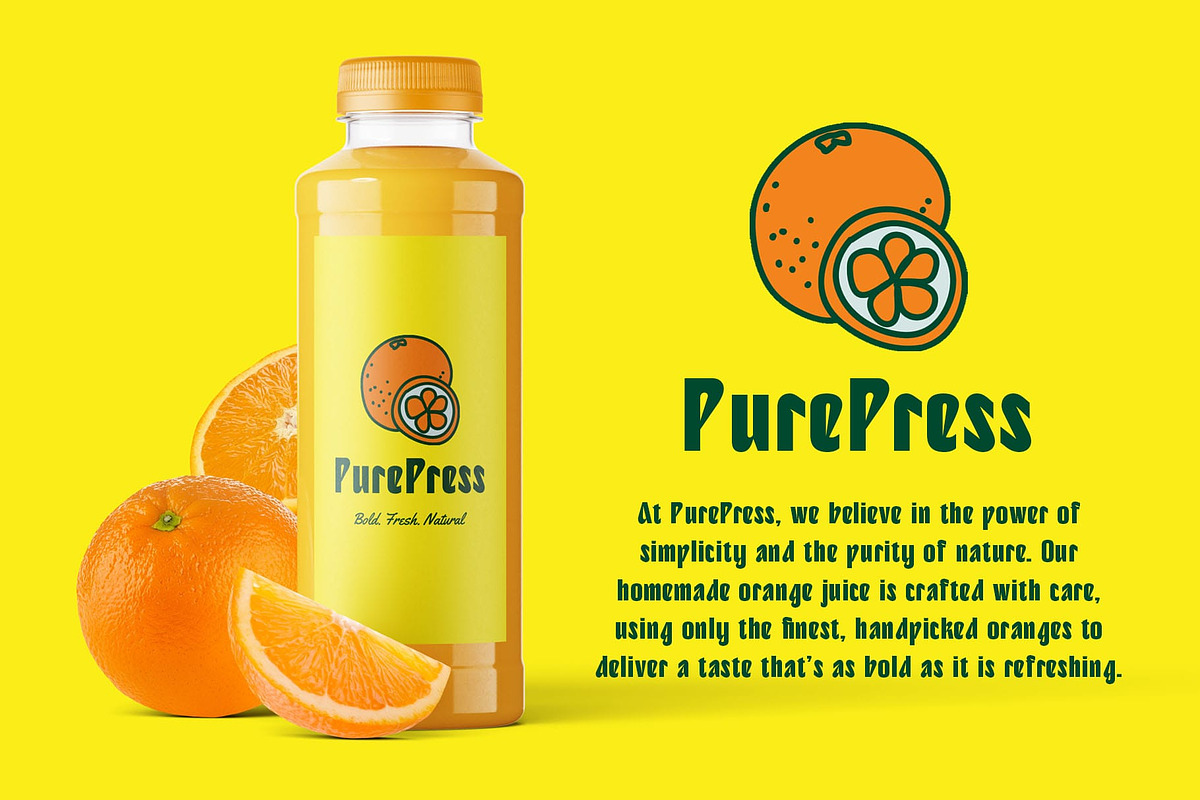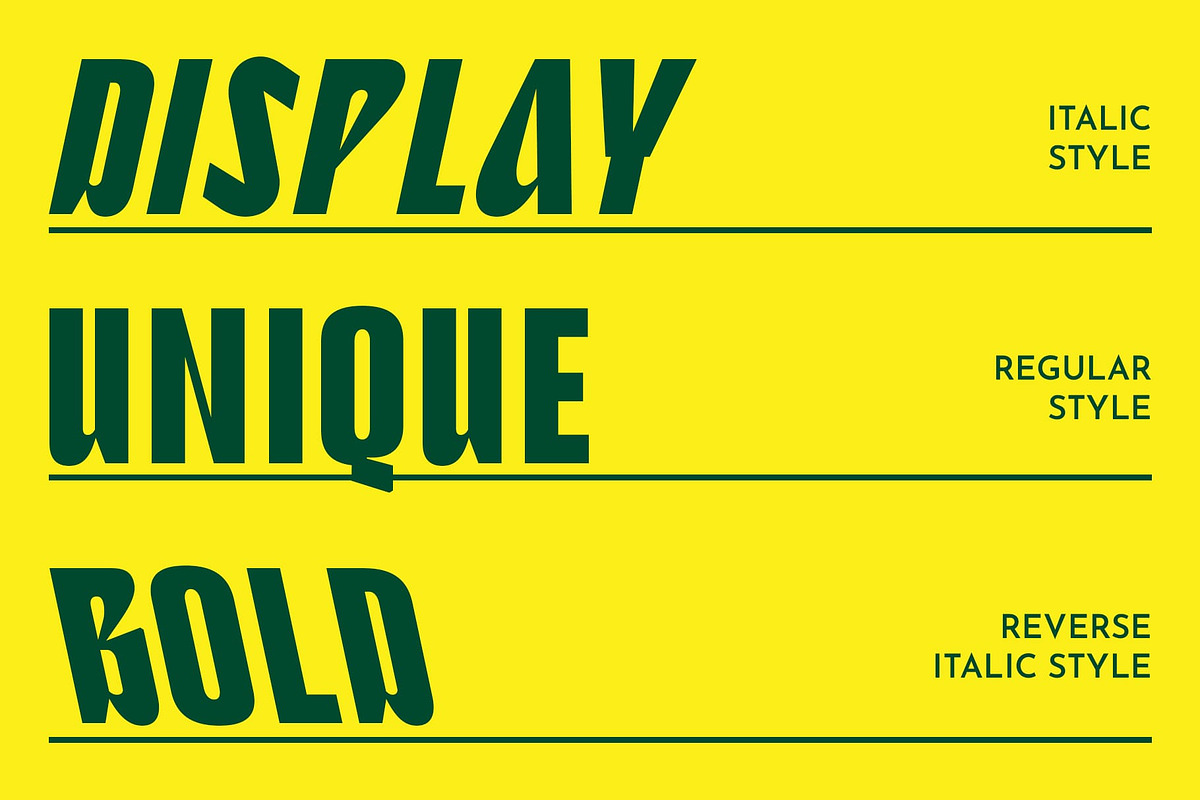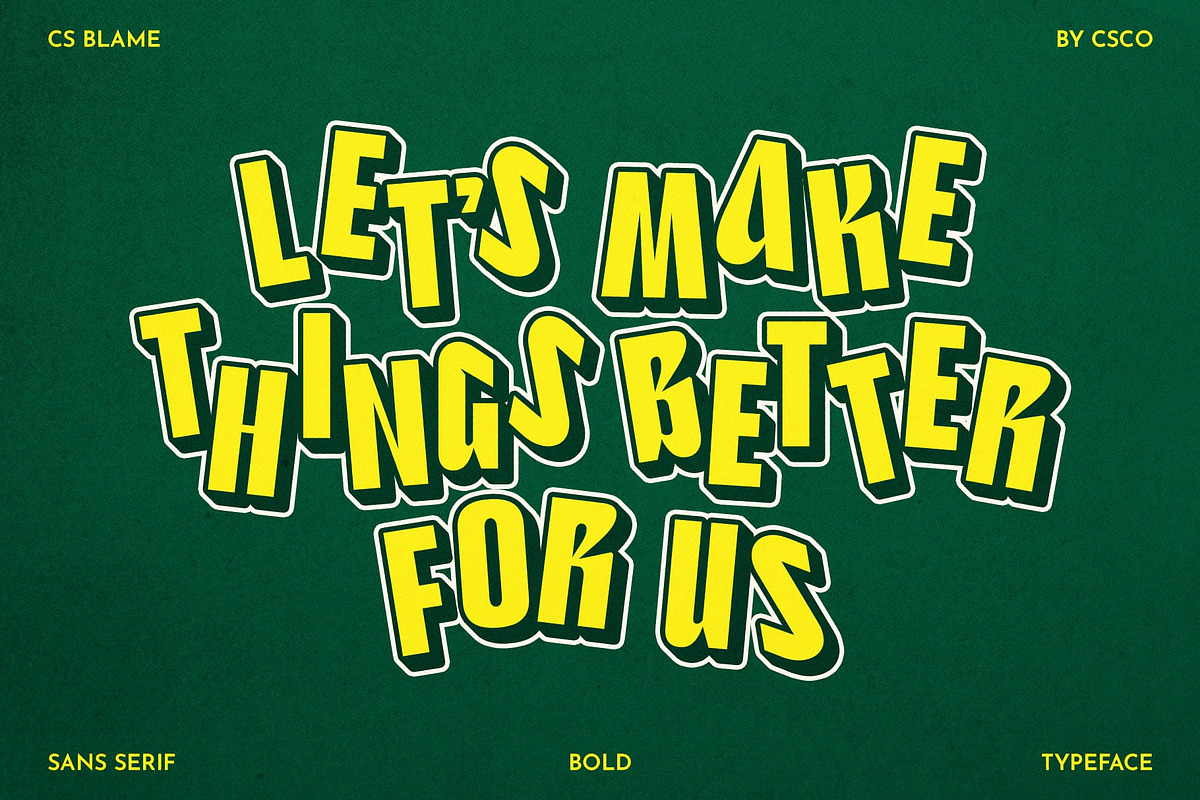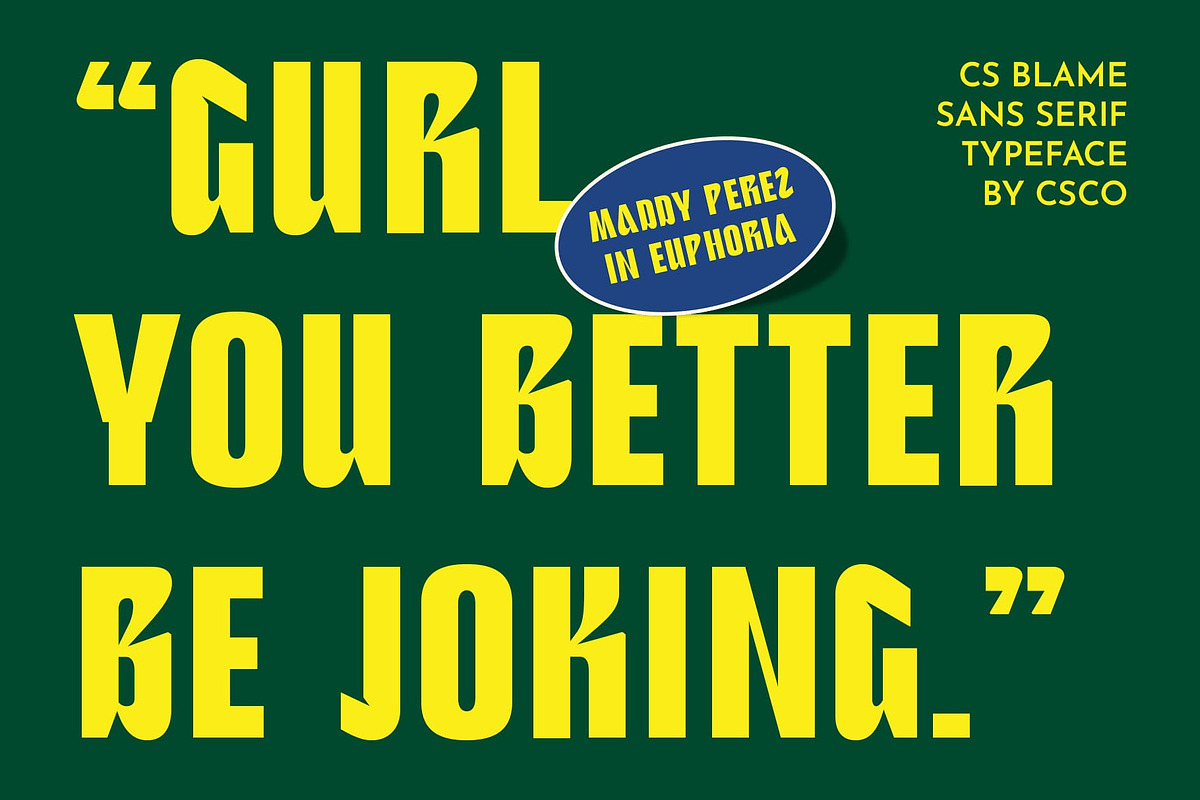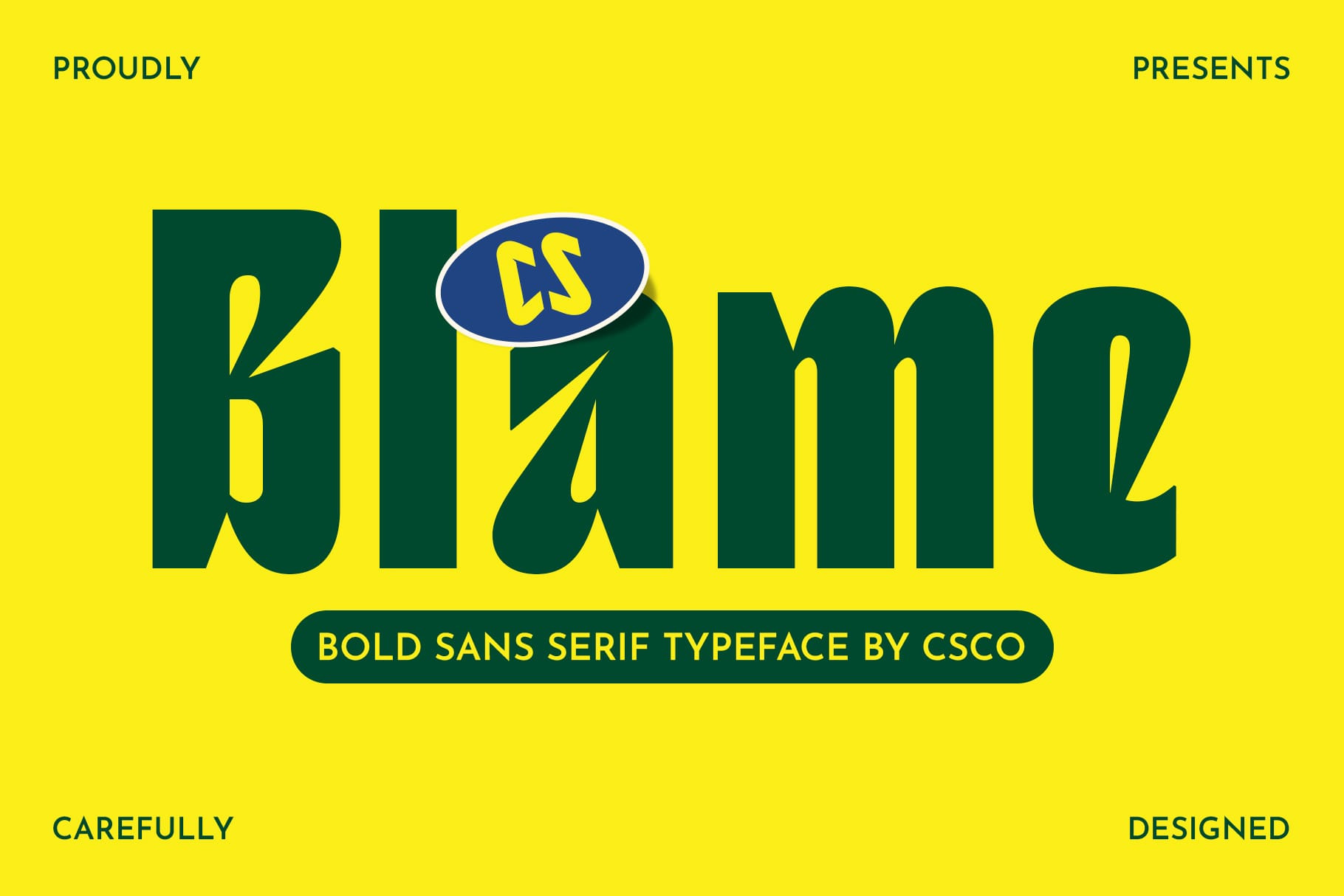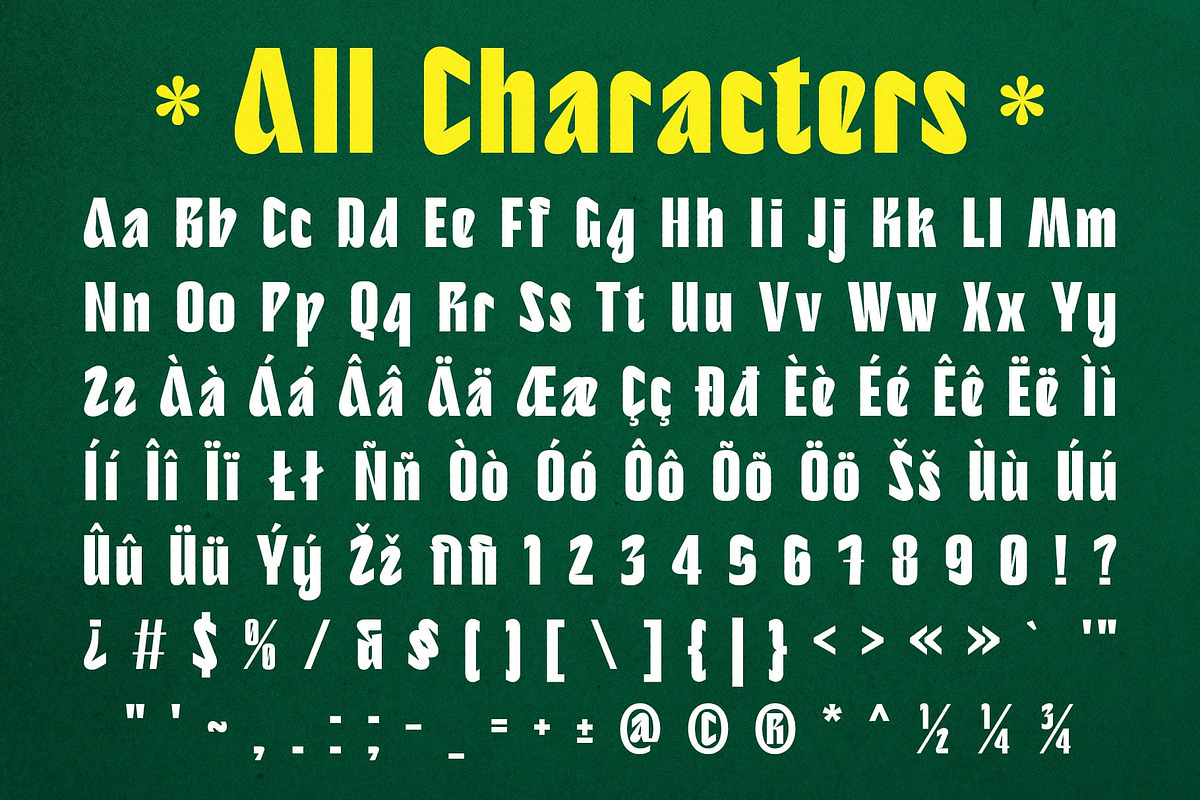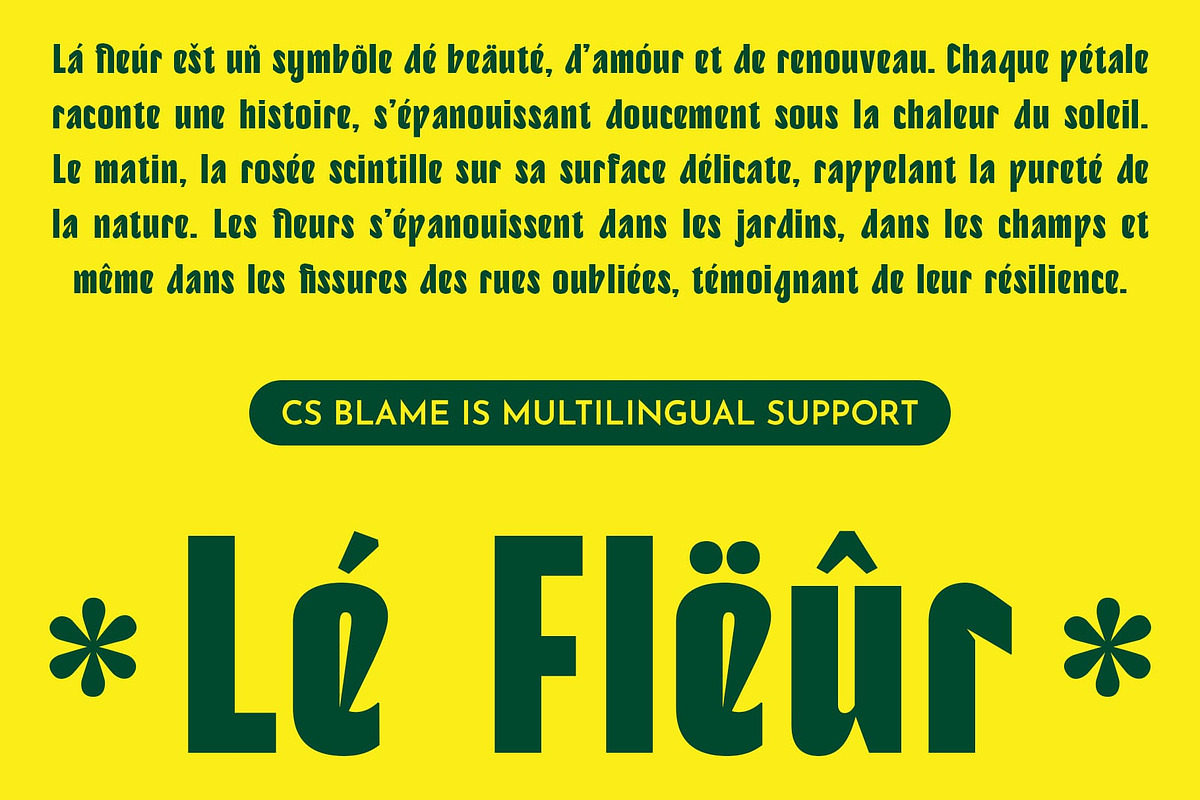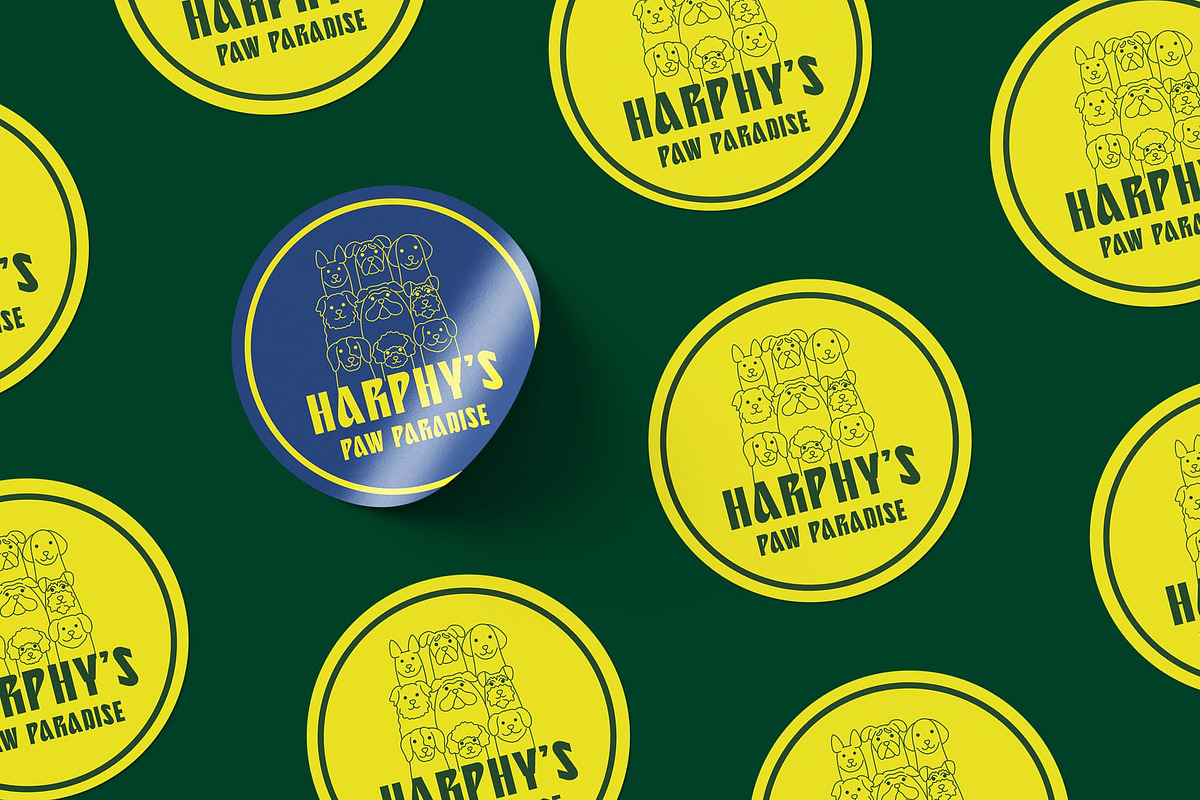
CS Blame – Bold Font
CS Blame – Bold Font: Where Strength Meets Funky Energy
A Bold and Funky Sans-Serif Style CS Blame is a modern sans-serif font that blends boldness with a fun, funky personality. Designed with strong, confident letterforms and unique stylistic details, this font exudes energy and vibrancy. Whether you’re looking for a font with a striking presence or something that adds a playful edge to your designs, CS Blame delivers a standout look.
Dynamic and Expressive Letterforms With well-defined proportions and a touch of curvature, CS Blame balances strength and creativity. Its bold structure ensures excellent readability, while the subtle funky elements add character and uniqueness. This makes it a versatile font that fits both professional and artistic applications, giving your typography a fresh and modern appeal.
Perfect for Eye-Catching Branding and Designs CS Blame is ideal for projects that demand impact, whether it’s branding, posters, product packaging, or digital designs. Its dynamic letterforms enhance visual appeal, making it a go-to choice for advertisements, promotional materials, and attention-grabbing headlines. The bold yet playful nature of this font allows it to stand out in both print and digital formats.
A Modern Statement of Confidence and Style This font is more than just a bold sans-serif—it’s a statement of confidence, energy, and modern design. Its engaging and stylish characteristics make it perfect for creative campaigns, trendy branding, and contemporary visuals.